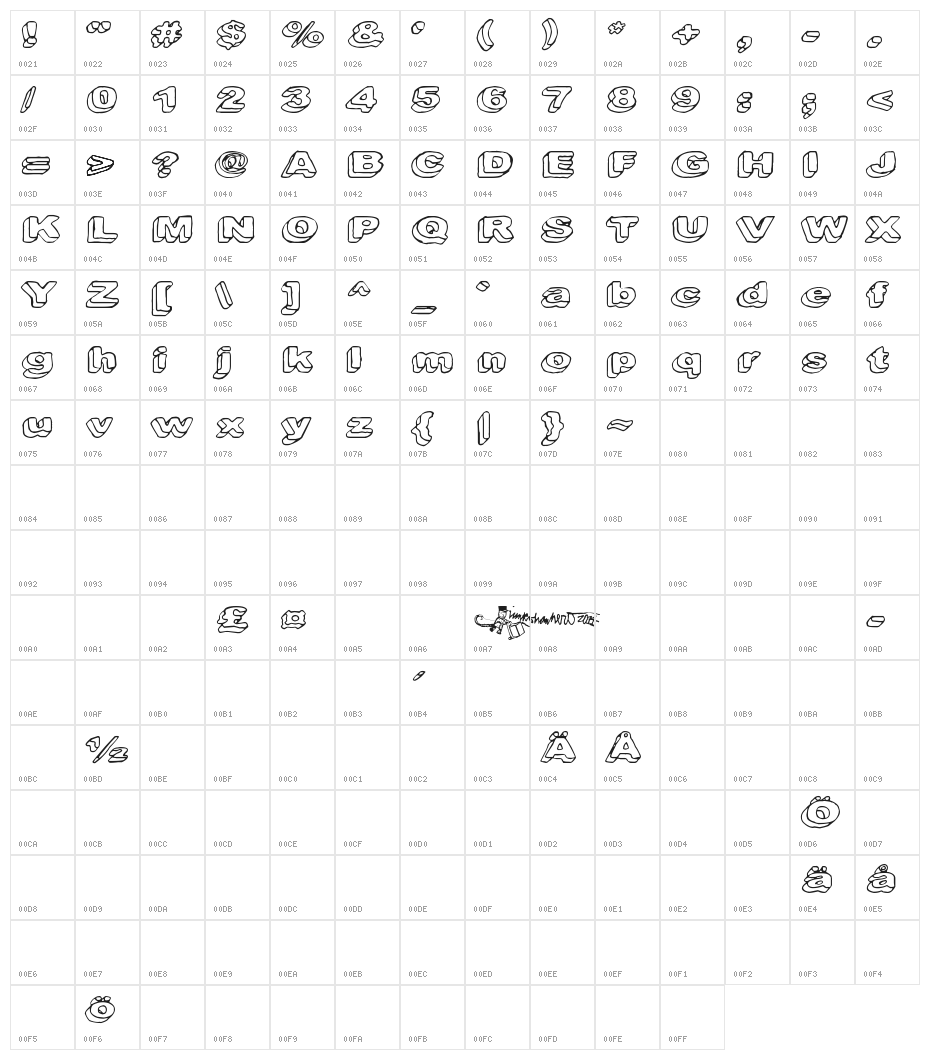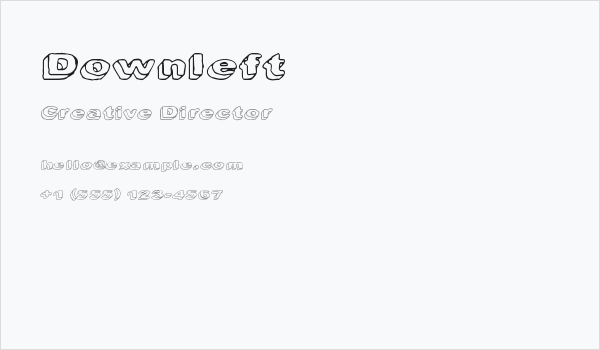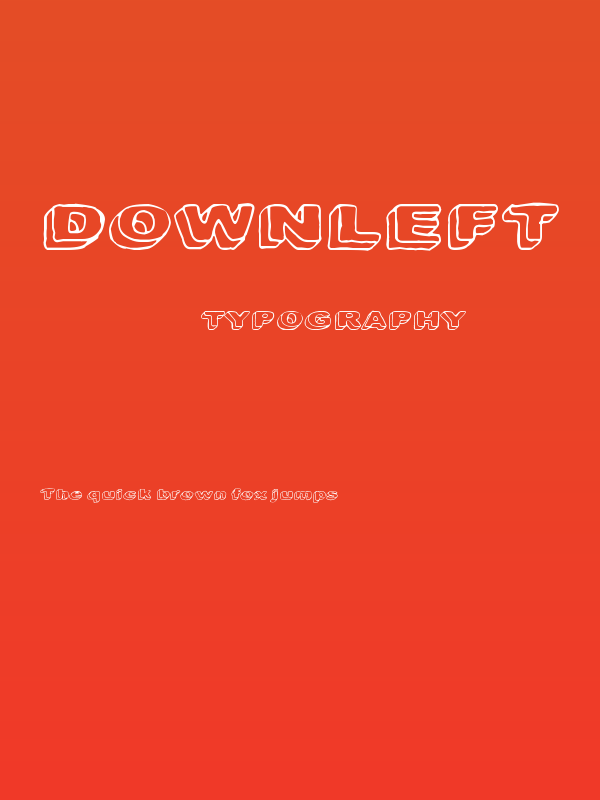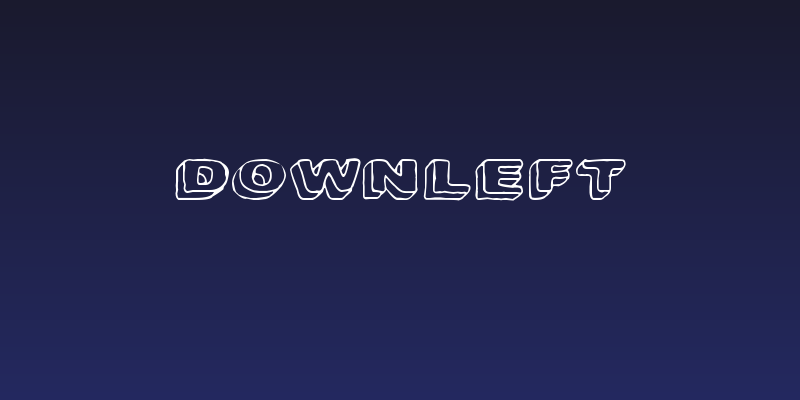
Downleft Font
Downleft Description
This font features a playful and bold 3D outline style, giving each character a sense of depth and dimension. The letters are uppercase and lowercase, with numbers and a variety of special characters included. The design is characterized by its thick, rounded edges and a shadow effect that creates a sense of movement and energy. This font is ideal for projects that require a fun and dynamic appearance, such as children's book covers, playful branding, or eye-catching posters. The overall look is both modern and whimsical, making it versatile for various creative applications.
Overall StyleModern, Whimsical
Proposed ProjectsIdeal for children's books, playful branding, posters, and creative designs needing a fun touch.